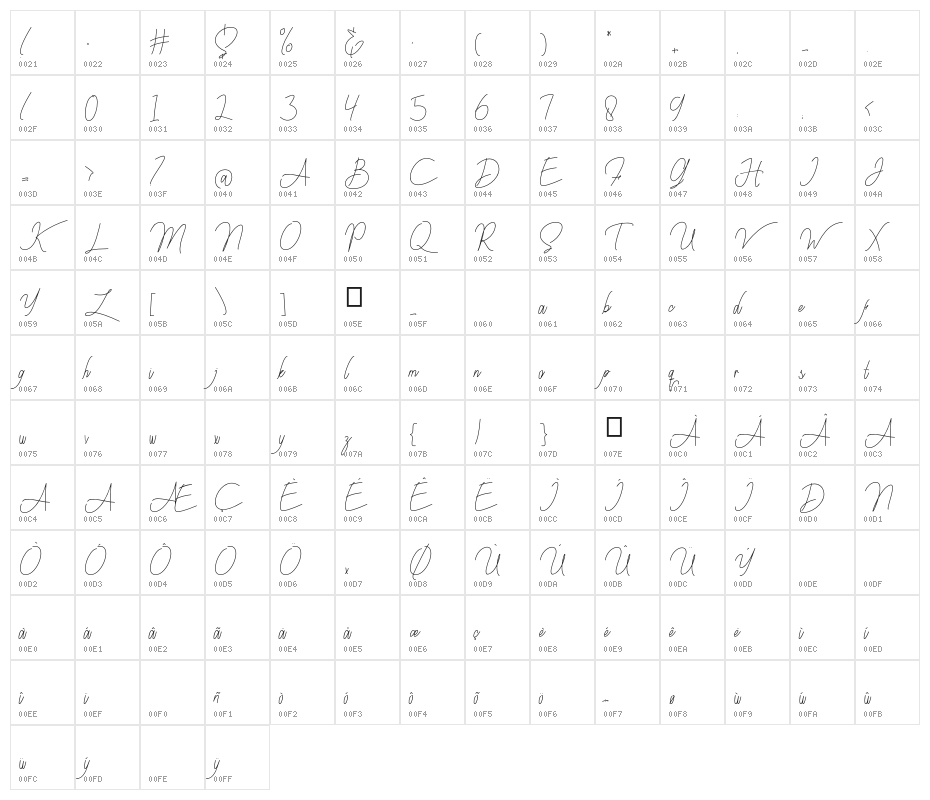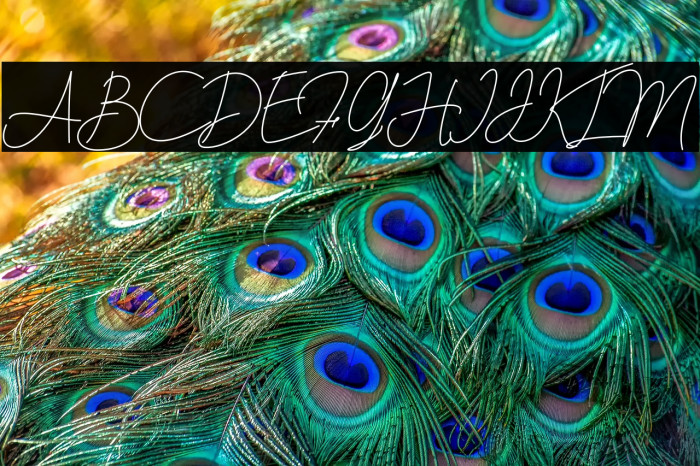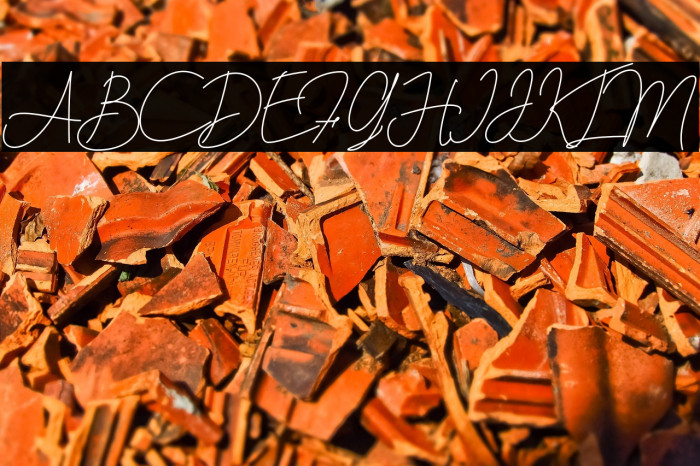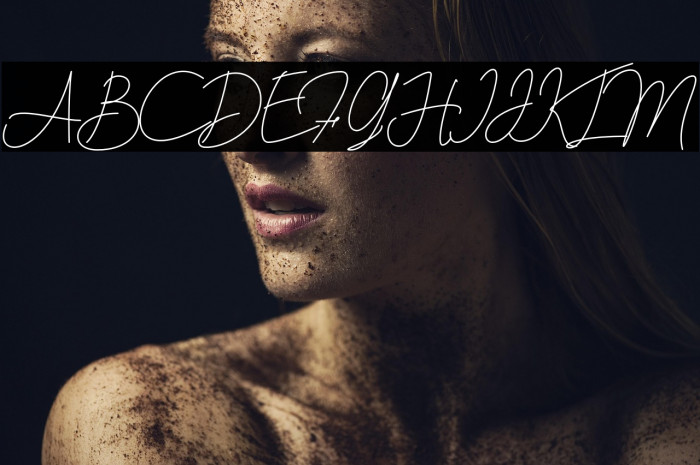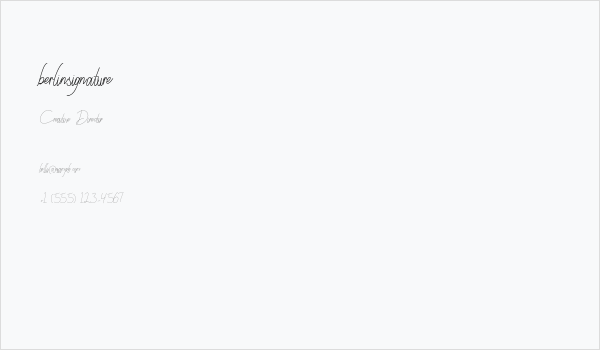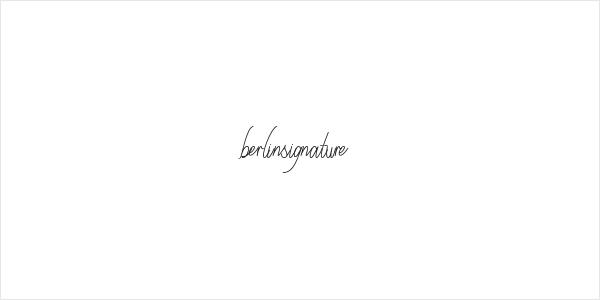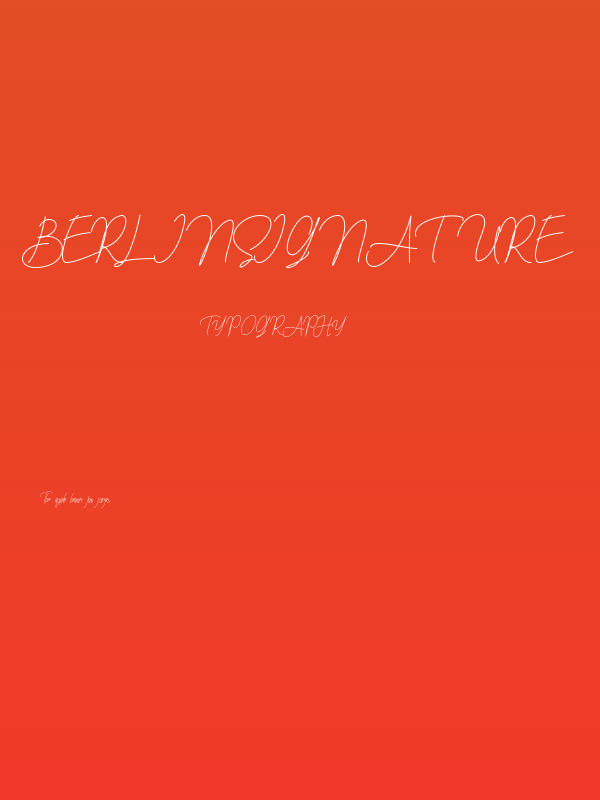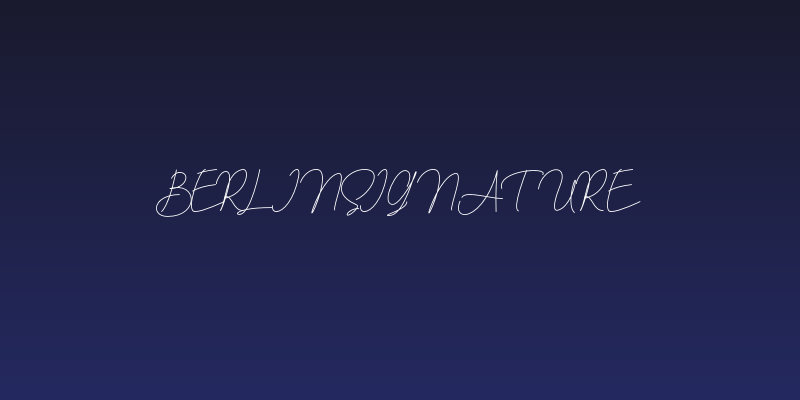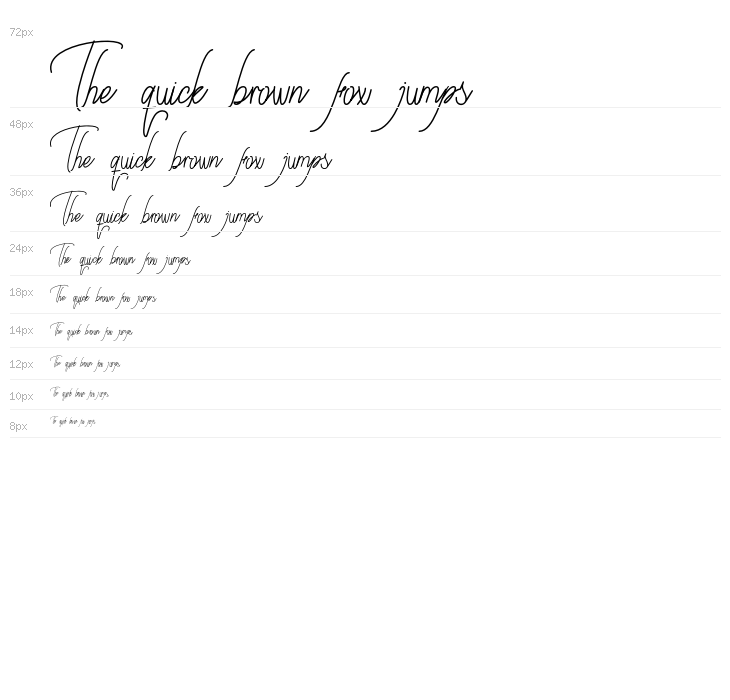
berlinsignature Font
berlinsignature Description
This font features an elegant and flowing script style, reminiscent of a personal signature. The characters are connected with smooth, sweeping strokes that convey a sense of sophistication and fluidity. The uppercase letters are tall and graceful, while the lowercase letters maintain a consistent flow, enhancing the overall cursive appearance. The numbers and special characters are designed to match the script style, ensuring a cohesive look across all elements. This font is ideal for projects that require a touch of elegance and personalization.
| Overall Style | Elegant, Personal, Sophisticated |
| Proposed Projects | Ideal for wedding invitations, personal branding, greeting cards, and elegant stationery. |